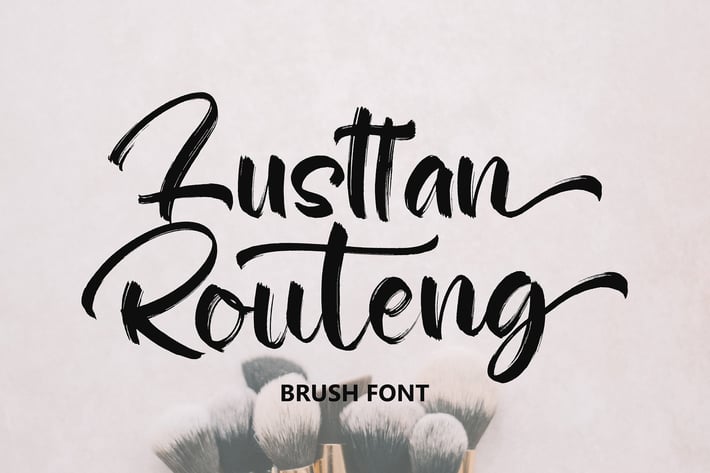
Lusttan Routeng Brush Font
Lusttan Routeng font with new style, this font will perfect for many different project ex: quotes, logo, blog header, poster, banding, fashion, apparel, letter, invitation, stationery, etc...